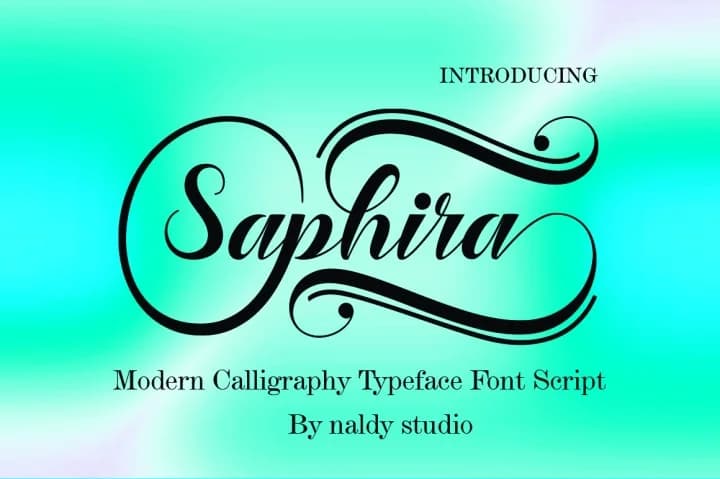
Saphira by naldystudio is a modern calligraphy script that brings contemporary elegance to handcrafted design projects. This flowing typeface excels for luxury wedding invitation suites, where every letter carries emotional weight and sets the tone for celebration. It's equally well-suited for upscale greeting card designs, boutique product packaging, and personalized gift labels that demand refined lettering and authentic character. Whether you're designing high-end cosmetics branding, creating sophisticated stationery projects for discerning clients, or crafting custom branding identities, Saphira delivers the graceful movement and distinctive presence your most refined projects need. The font's smooth strokes and dynamic letterforms strike a careful balance between modern sensibility and traditional calligraphic beauty. Its comprehensive glyph support ensures seamless integration across diverse creative applications, from intimate personal stationery to broader commercial branding initiatives in multiple languages and markets. Saphira excels wherever authenticity and sophistication matter most, capturing that hand-lettered elegance while maintaining the technical precision professional work demands. The typeface brings genuine character to designs without sacrificing legibility or polish, making it ideal for projects where craftsmanship and attention to detail set your work apart. Get Saphira on Creative Fabrica and add refined calligraphic character to your next project.
Saphira Font is a script font that shines as a display or heading face. Pair it with a clean sans-serif or serif font for body text — the contrast creates a clear hierarchy while the two styles stay balanced and easy to read.